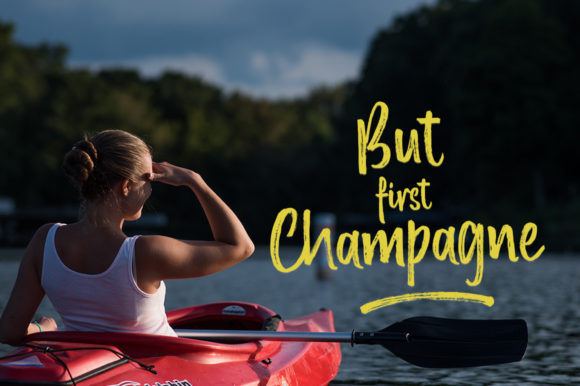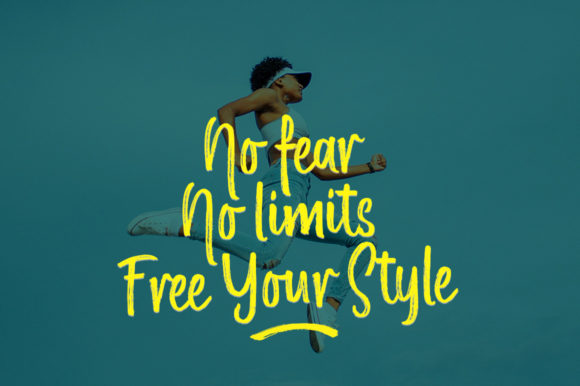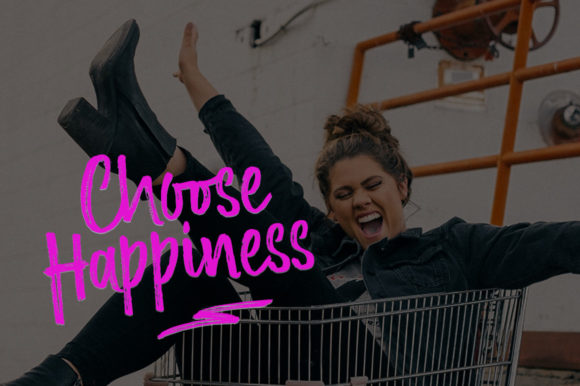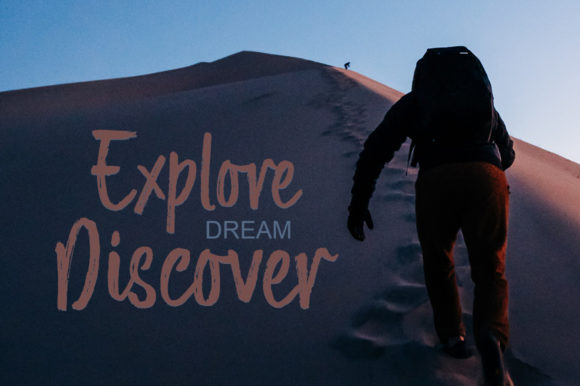
About Better Night Font
Better Night is a sweet, all round and brushed handwritten font. Warm, romantic and jolly, this font will turn each of your project ideas into real works of art. Have fun with this beautiful font and explore its endless variations.